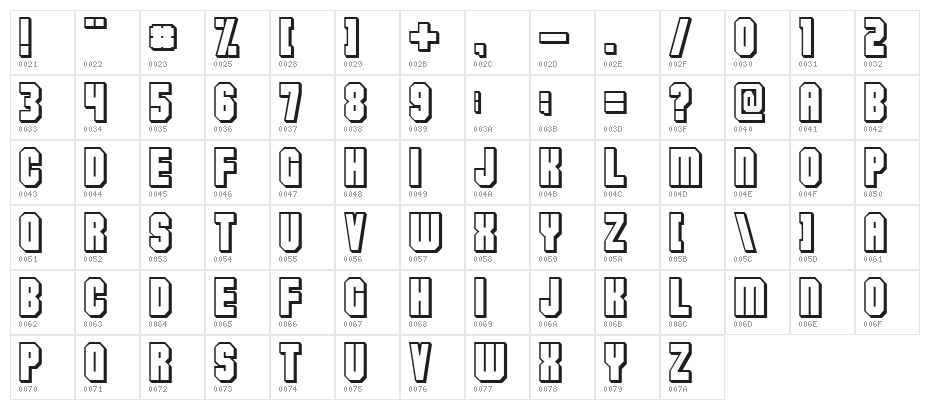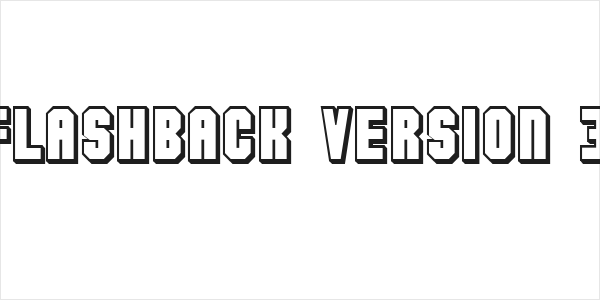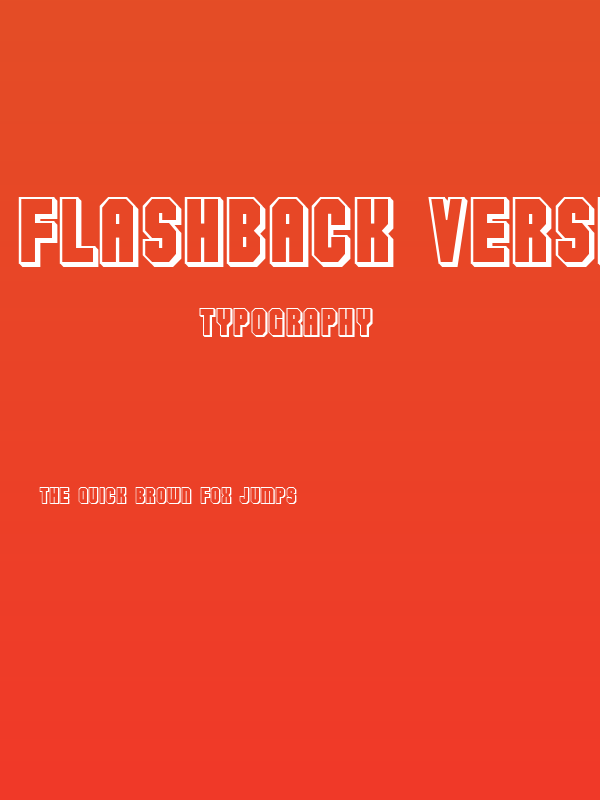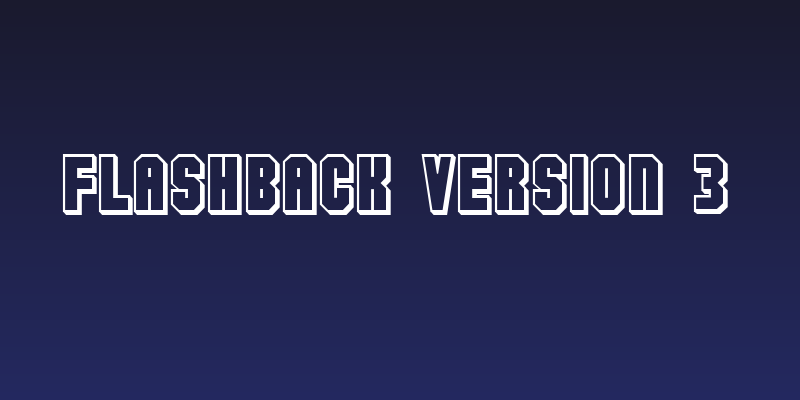
Flashback version 3 Font
Flashback version 3 Description
This font features a bold, geometric design with a three-dimensional effect, achieved through the use of thick outlines and shadowing. The characters are blocky and angular, giving them a strong, impactful presence. The uppercase letters are uniform in height, while the numerals and special characters maintain the same bold style. The font's design is reminiscent of retro or arcade aesthetics, making it ideal for projects that require a nostalgic or playful touch. Its distinct style ensures high readability, even from a distance, making it suitable for headlines and display purposes.
| Overall Style | Retro, Decorative |
| Proposed Projects | This font is perfect for video game titles, posters, logos, and any design that aims to capture a retro or arcade feel. |